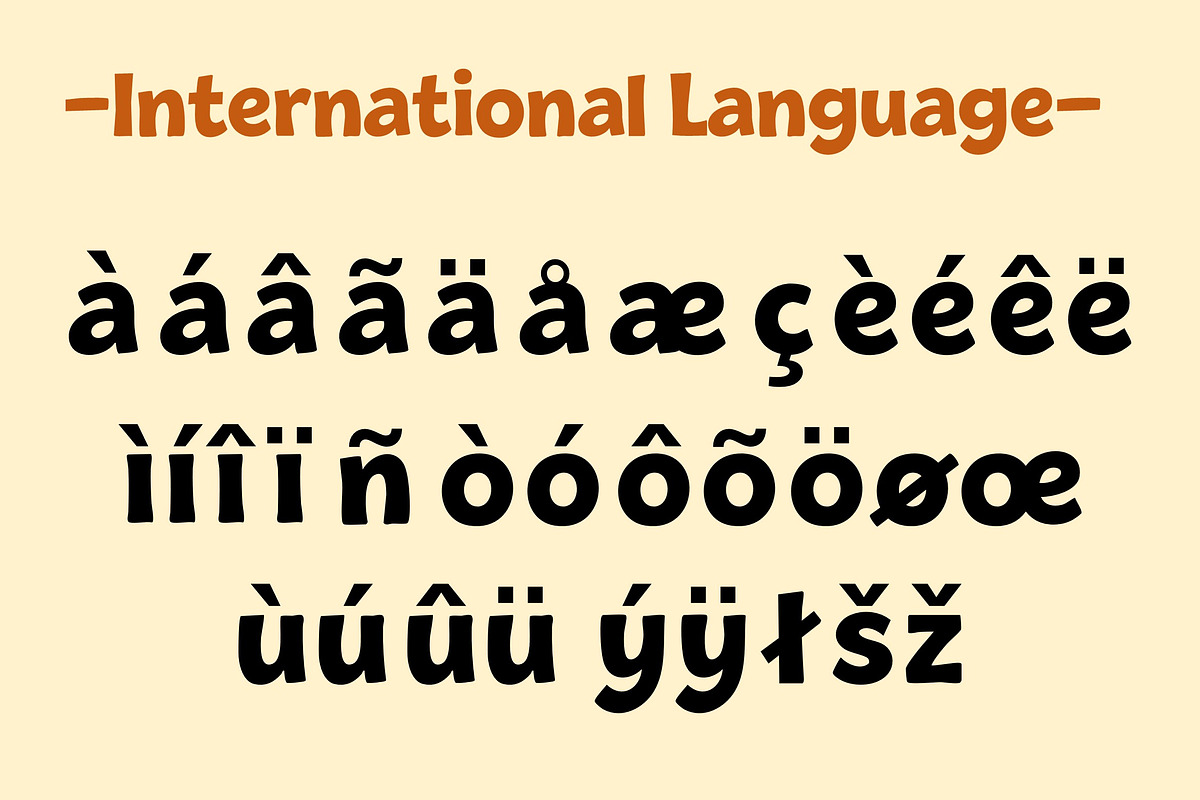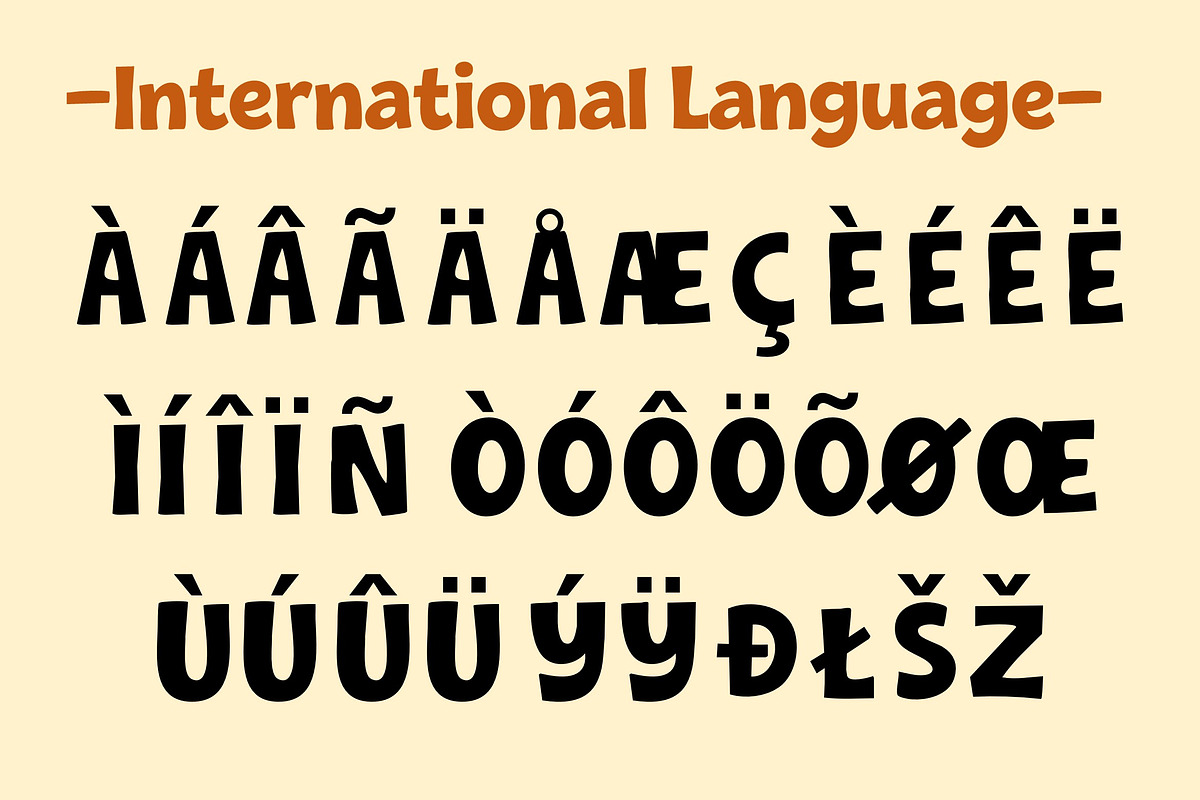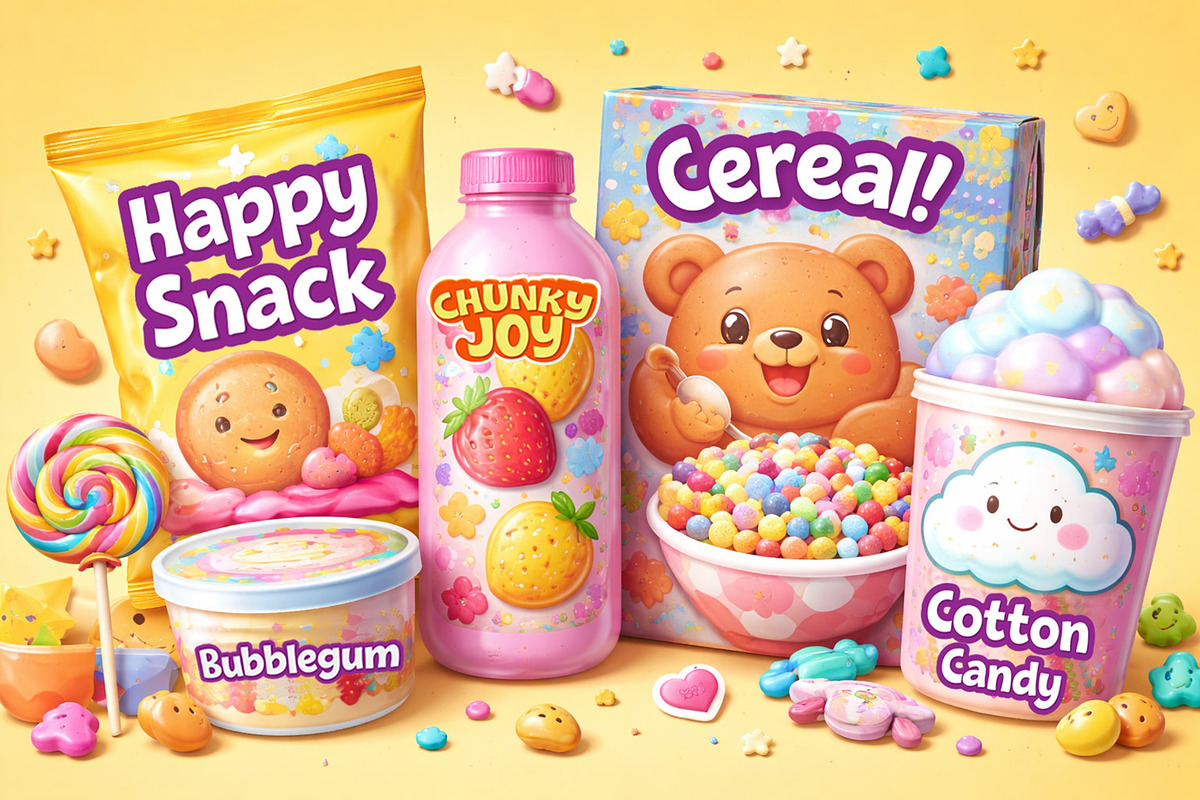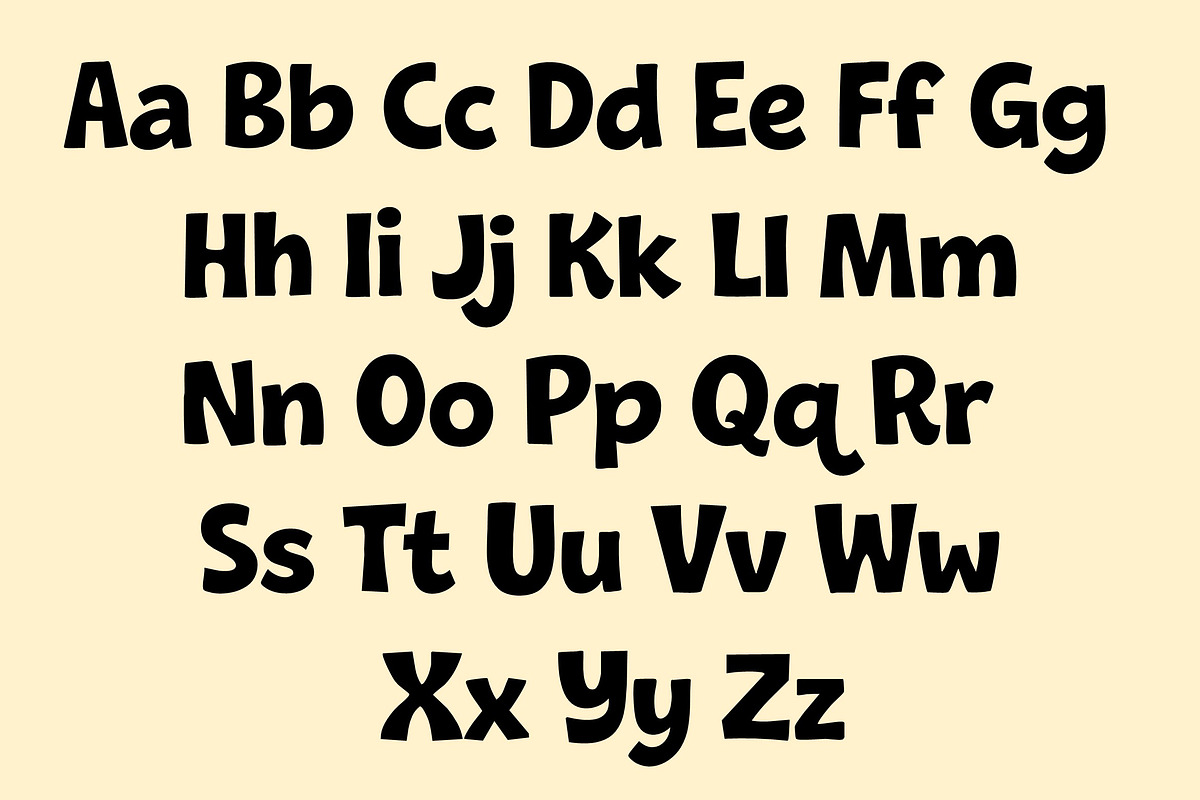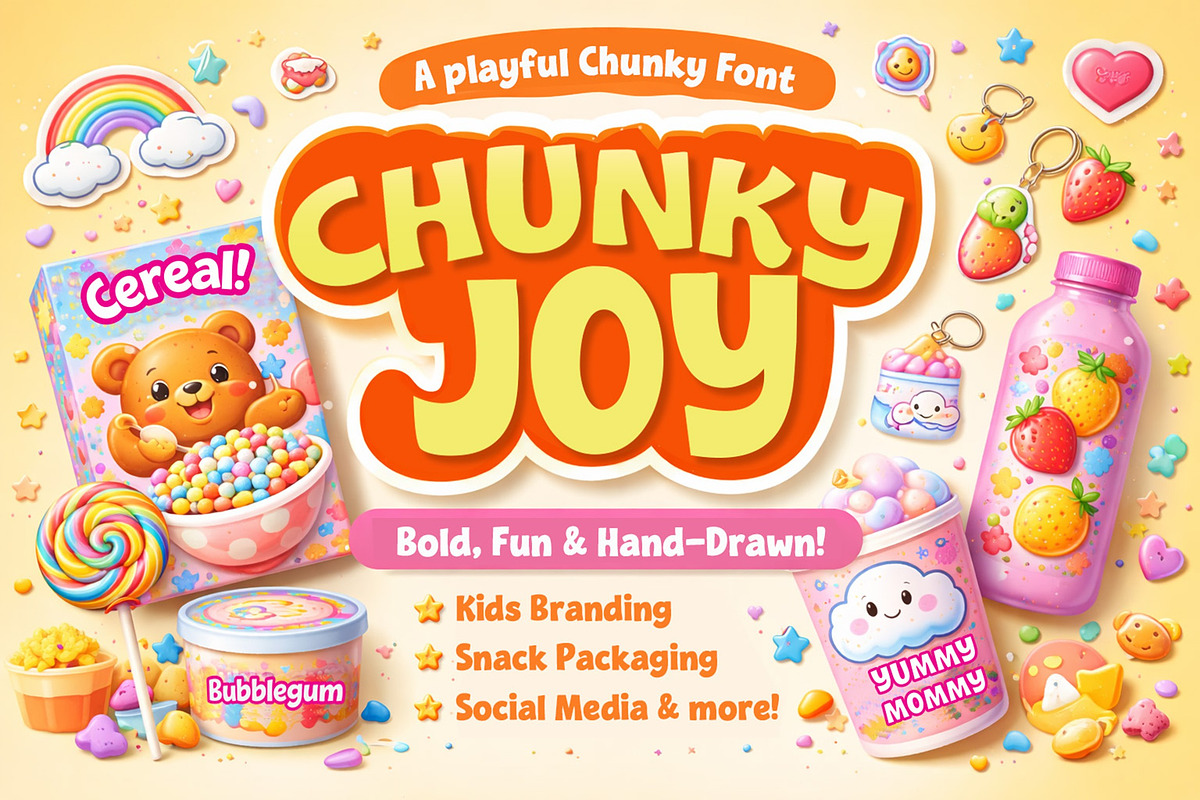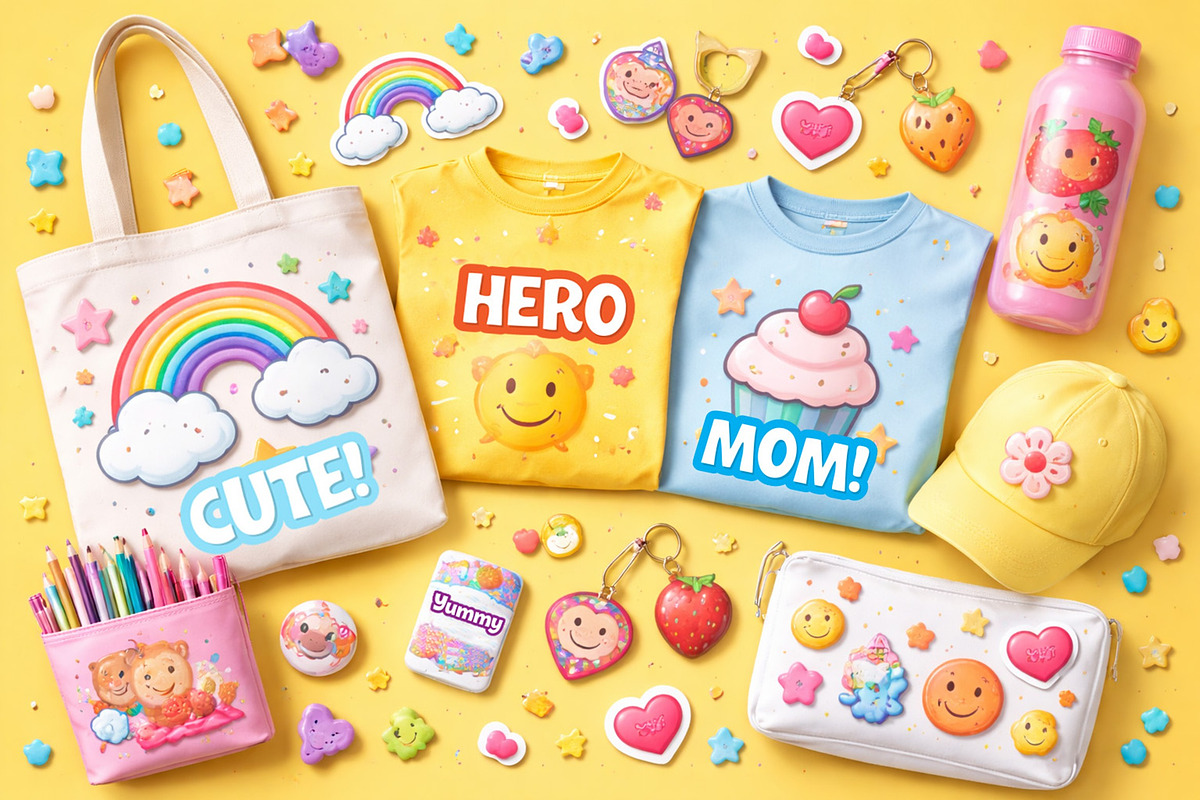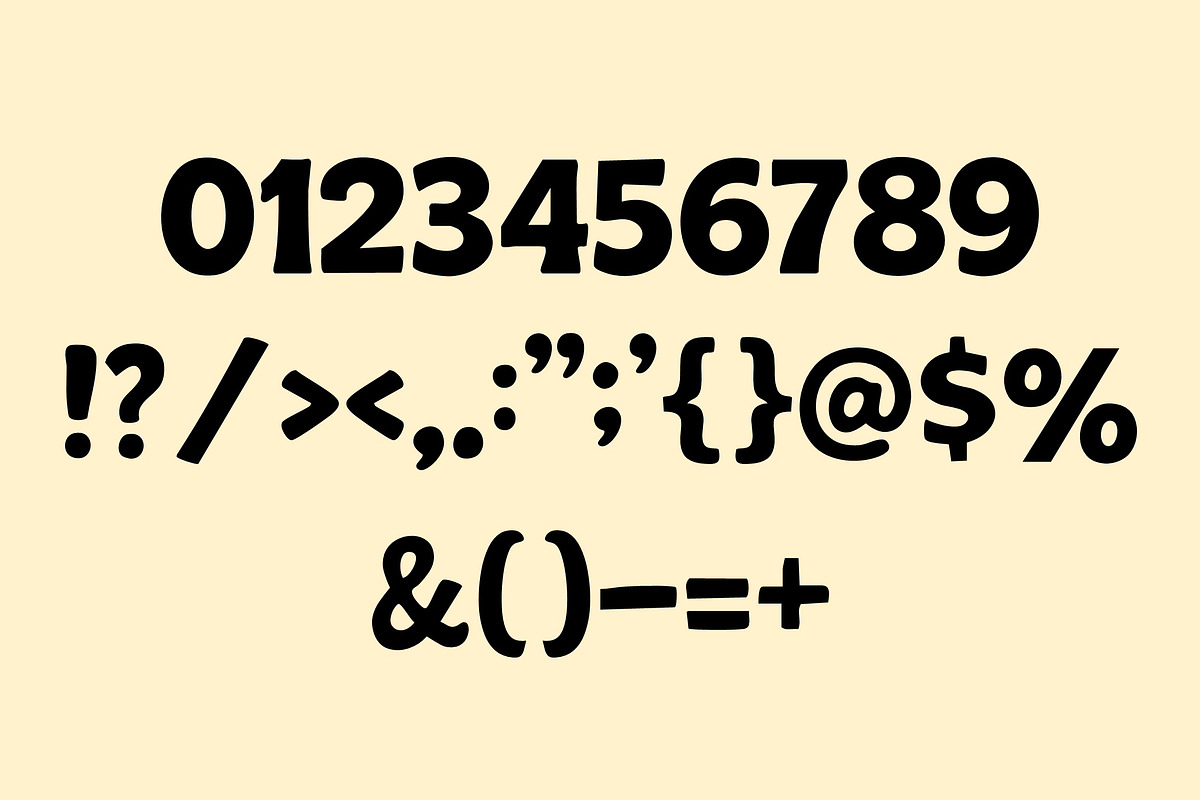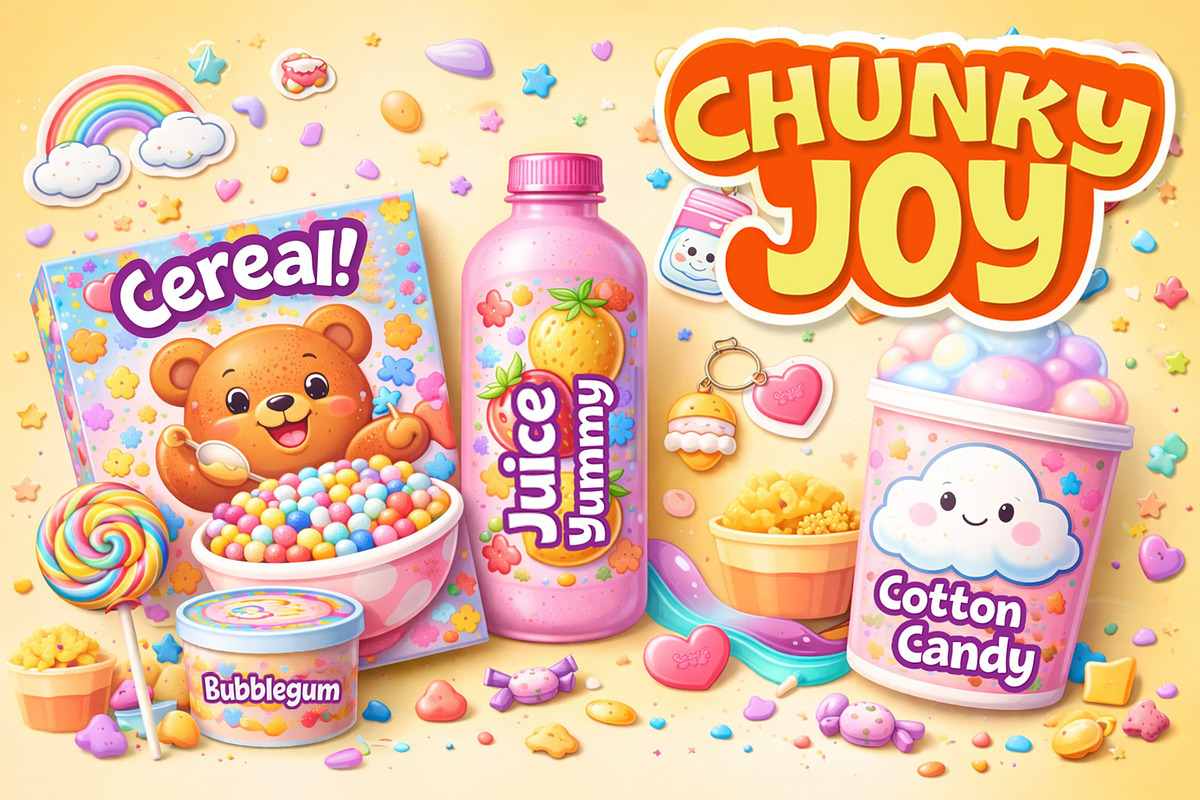
Chunky Joy
Chunky Joy Font is a bold and playful hand-drawn display font with chunky shapes and friendly curves. Designed to bring a fun and cheerful personality to your projects, this font is perfect for kids branding, snack packaging, social media graphics, posters, and playful logo designs.
- 223 Glyps included Uppercase, Lowercase, Numeral, Punctuation, Multilingual international Language.